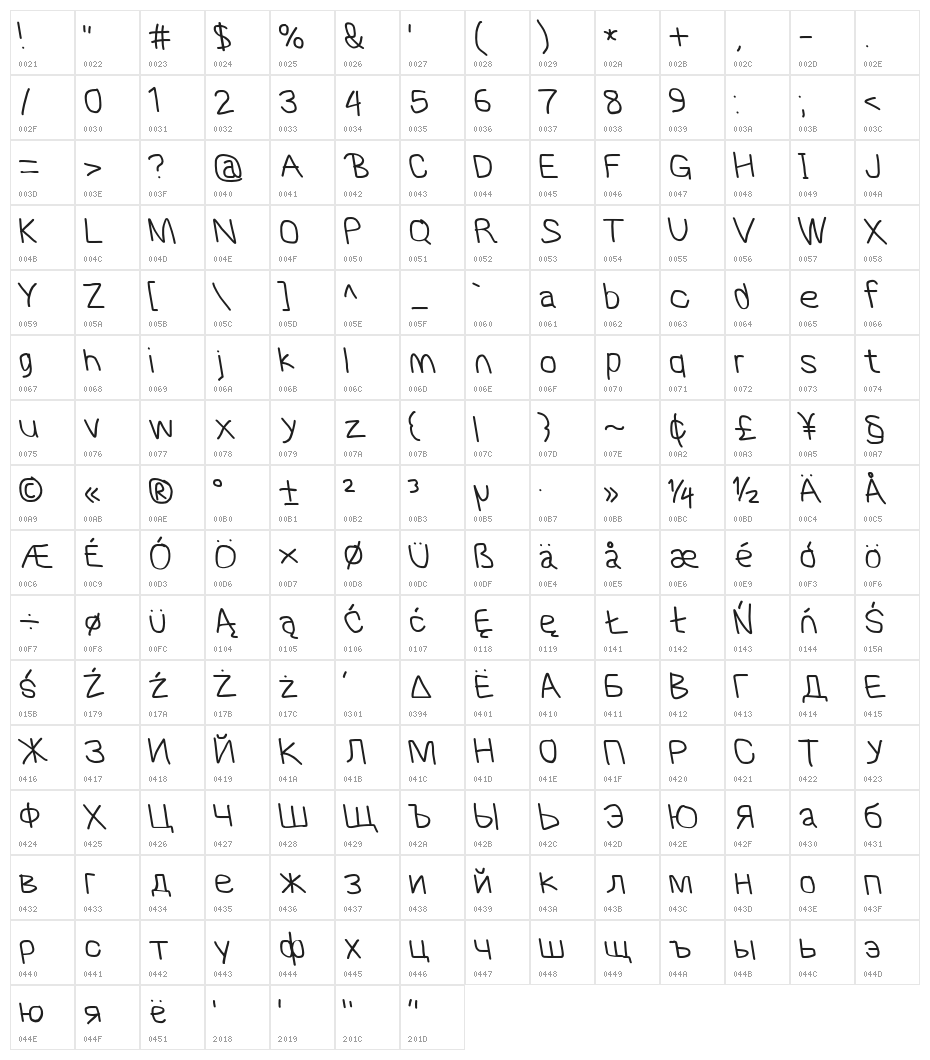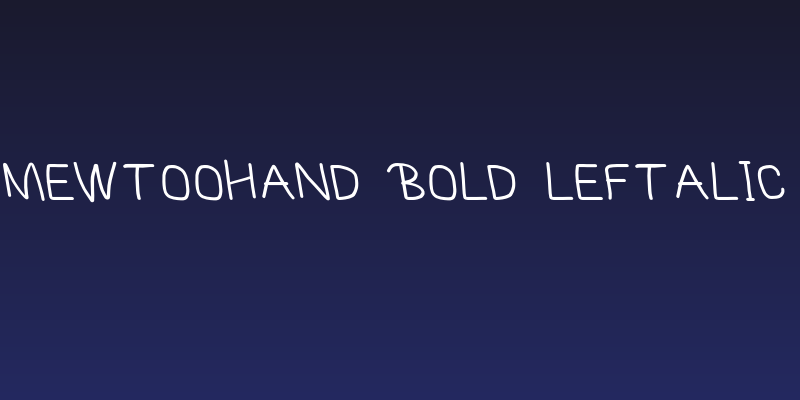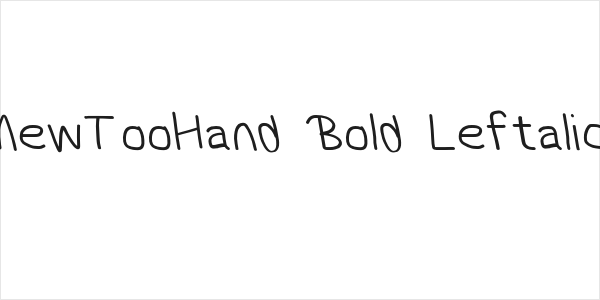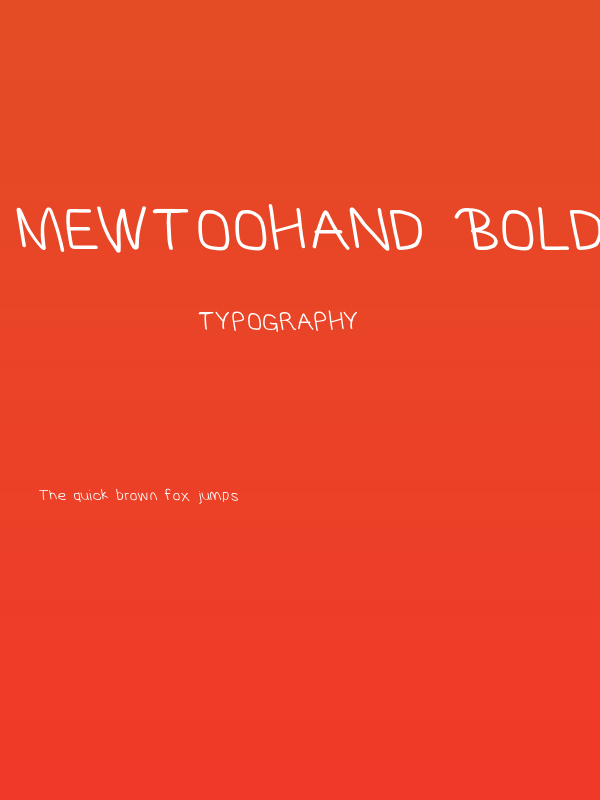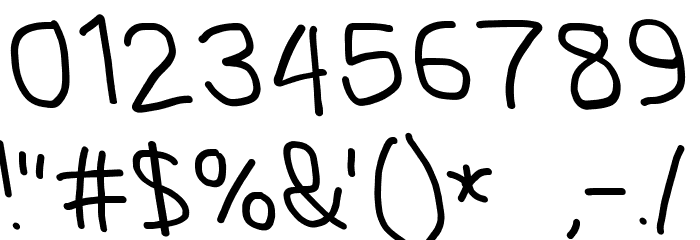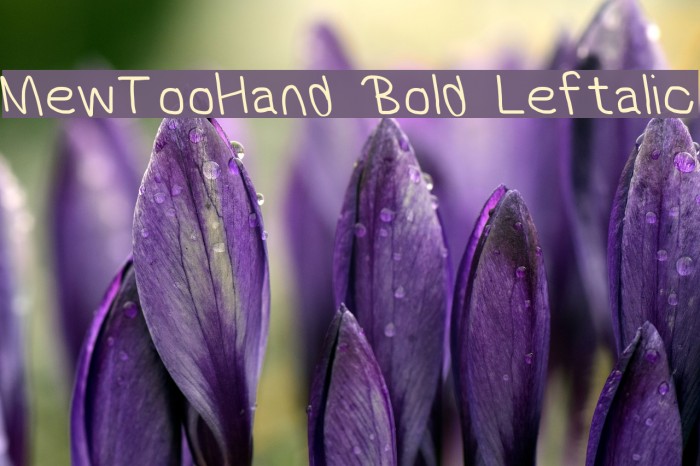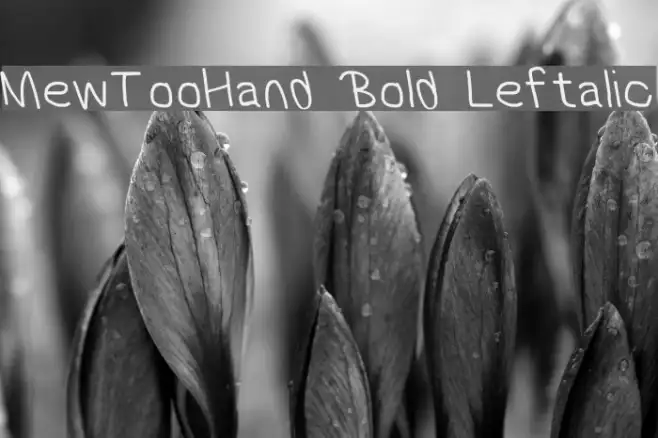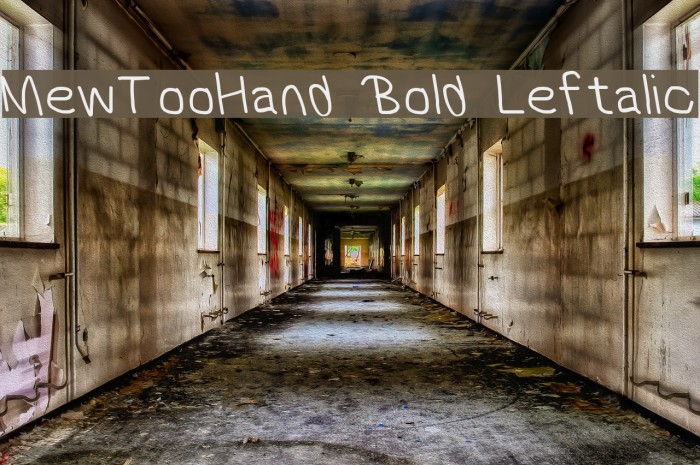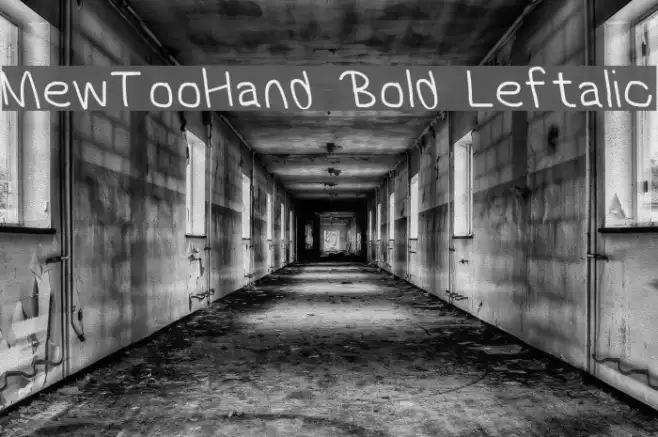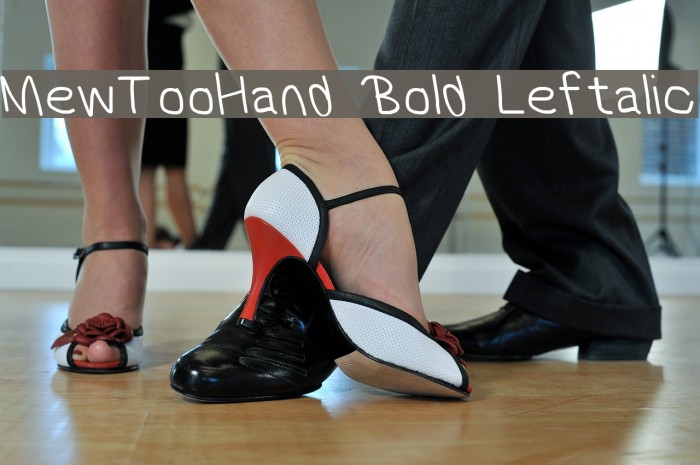
MewTooHand Bold Leftalic Font
MewTooHand Bold Leftalic Description
This font features a playful and informal handwritten style, characterized by its bold and slightly italicized appearance. The letters have a consistent stroke width, giving it a uniform look, while the slight slant adds a dynamic feel. The characters are rounded and smooth, with a casual and friendly vibe. The uppercase and lowercase letters maintain a cohesive style, with the numerals and special characters following suit. This font is ideal for projects that require a personal touch or a relaxed atmosphere.
| Use Case | Headlines, Informal text, Branding |
| Proposed Projects | Ideal for greeting cards, children's books, casual branding, and social media graphics. |